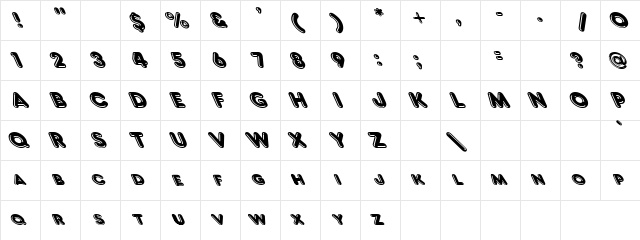
Frankfurt Lefty Regular
Design Context for Frankfurt Lefty Typeface
Frankfurt Lefty is a composed and adaptable typeface that performs quietly and consistently across a wide range of design contexts.